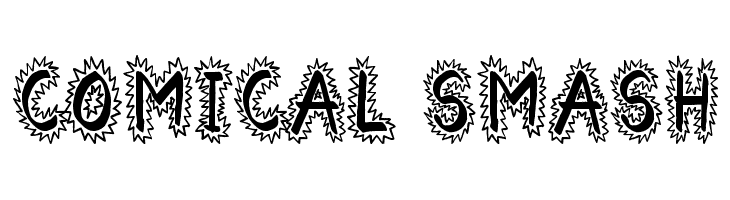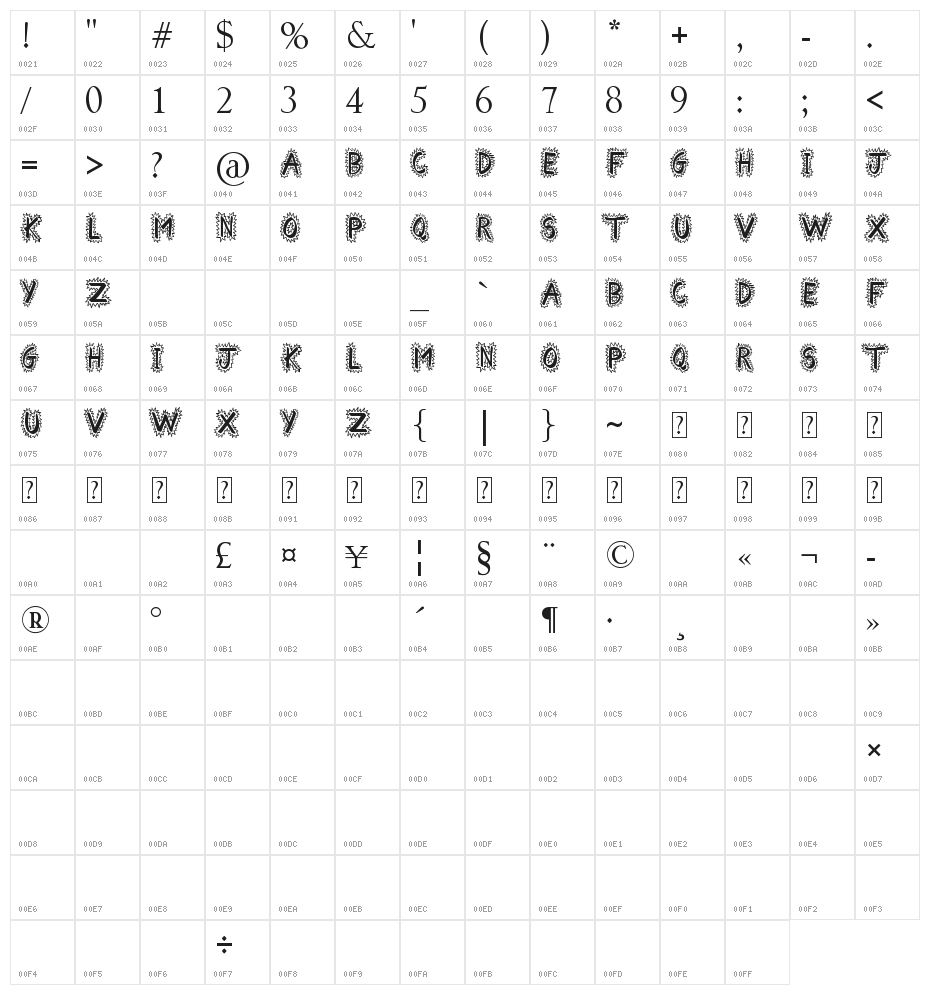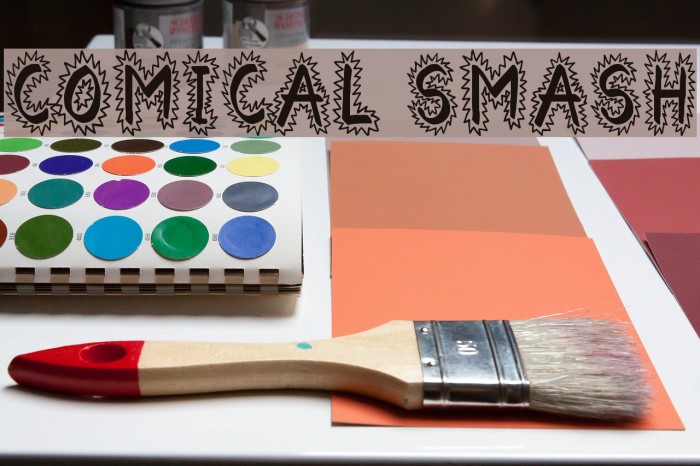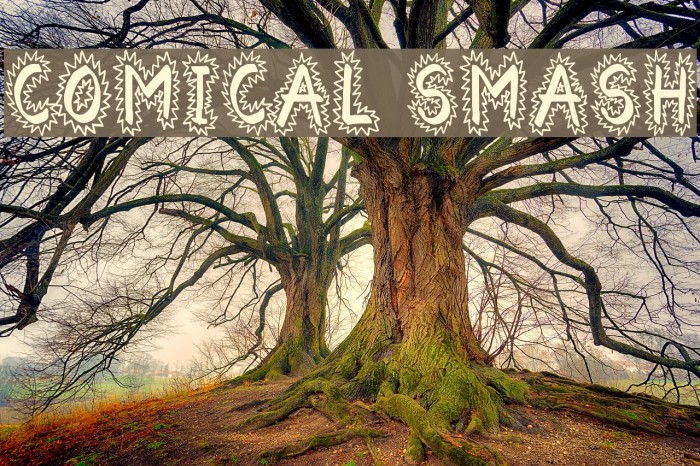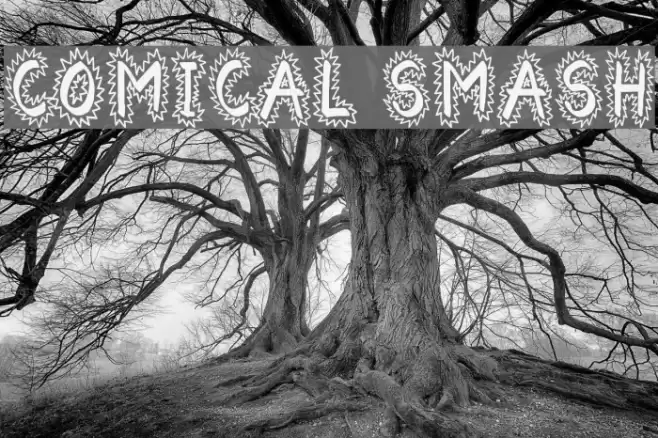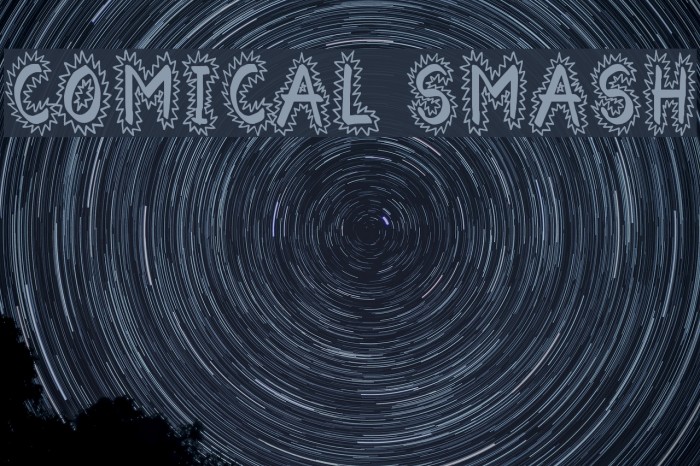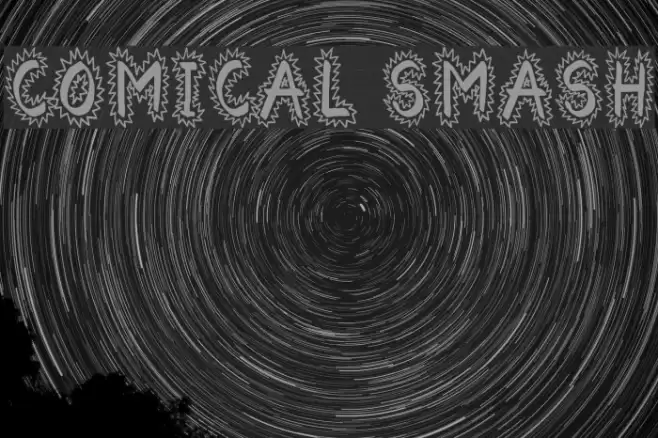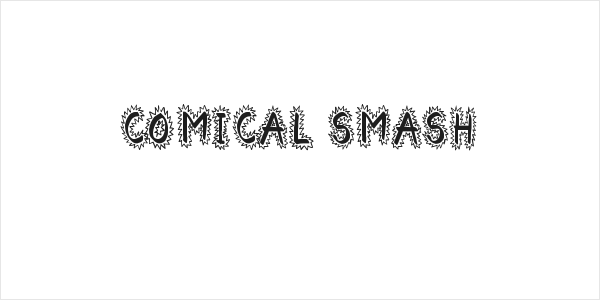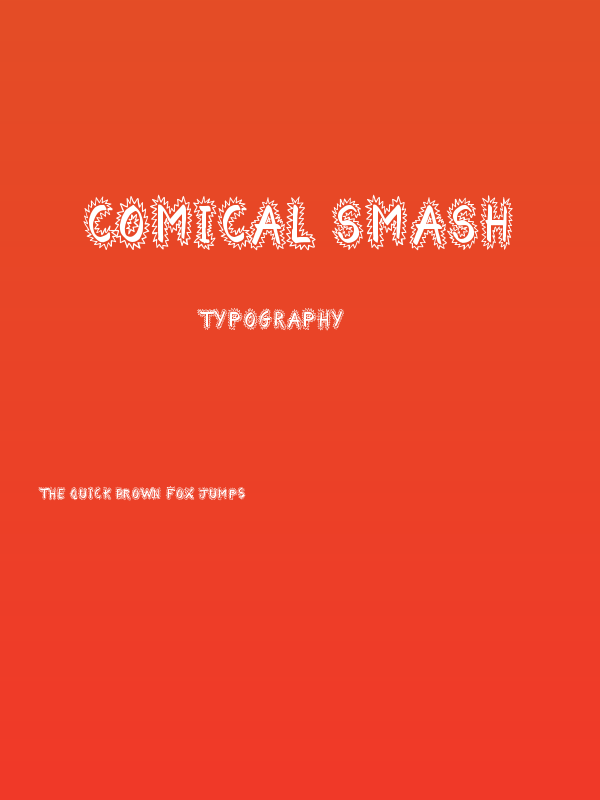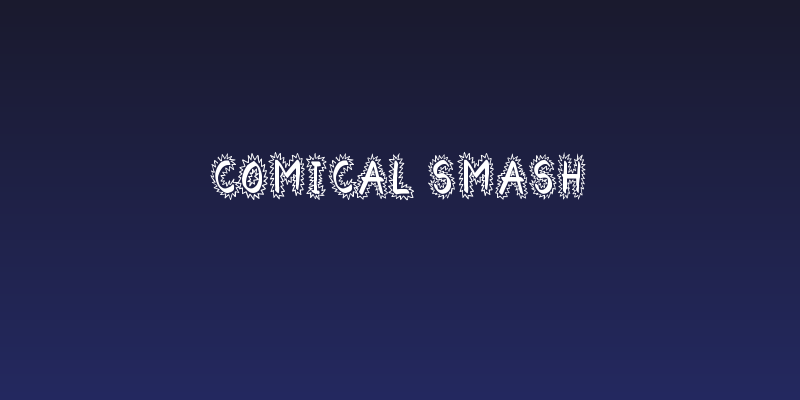
Comical Smash Font
Comical Smash Description
This font features a playful and energetic style, characterized by bold, jagged outlines that give each letter a dynamic, explosive appearance. The uppercase and lowercase letters maintain a consistent, whimsical design that is both eye-catching and fun. The numbers and special characters complement the overall theme with a slightly more subdued style, yet still retain a sense of movement and flair. This font is ideal for projects that require a lively and engaging visual impact, such as comic book titles, children's book covers, or playful branding materials.
Overall StylePlayful, Energetic, Dynamic
Use CaseHeadlines, Logos, Display text
Proposed ProjectsComic book titles, children's book covers, playful branding materials.